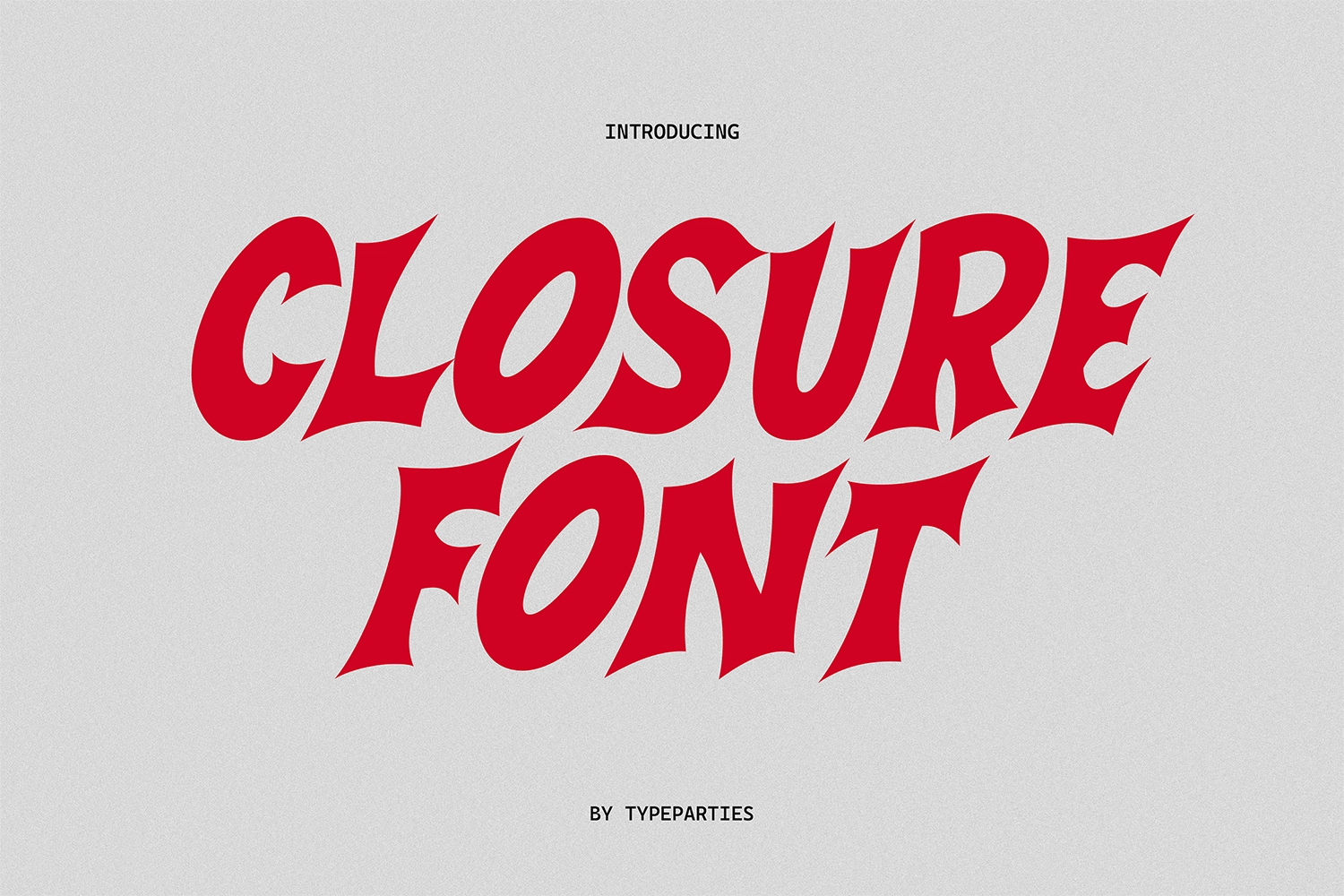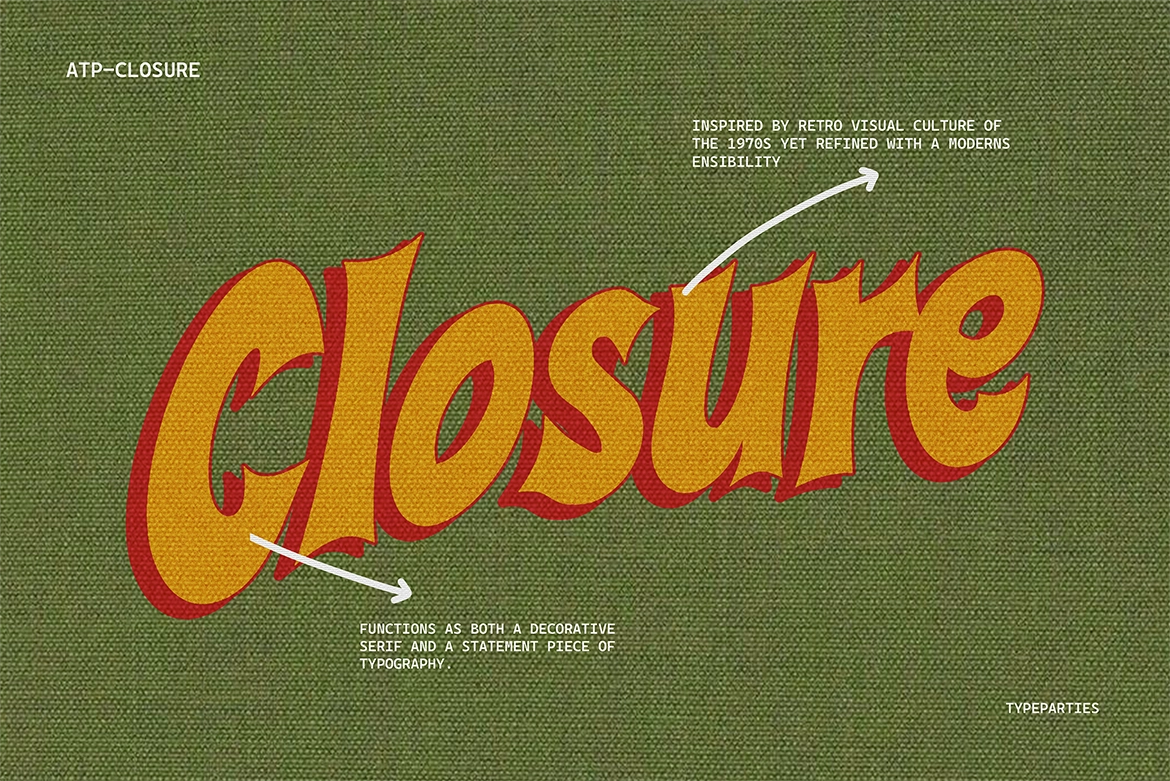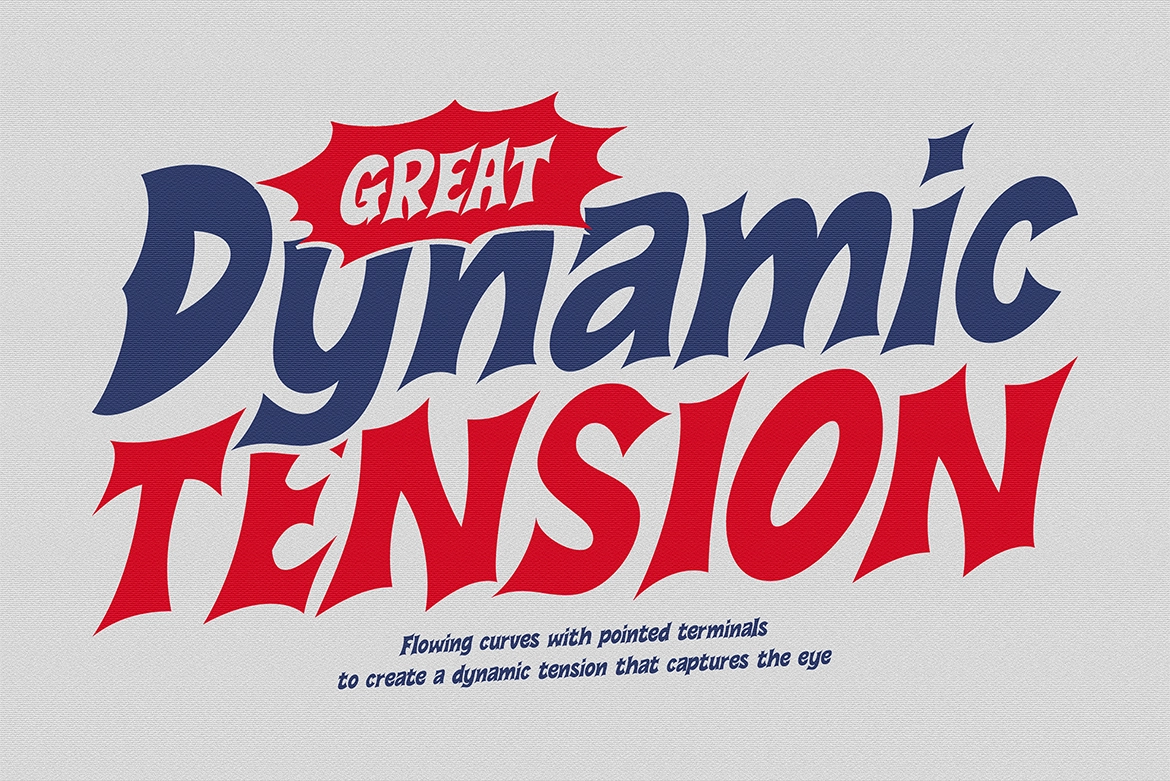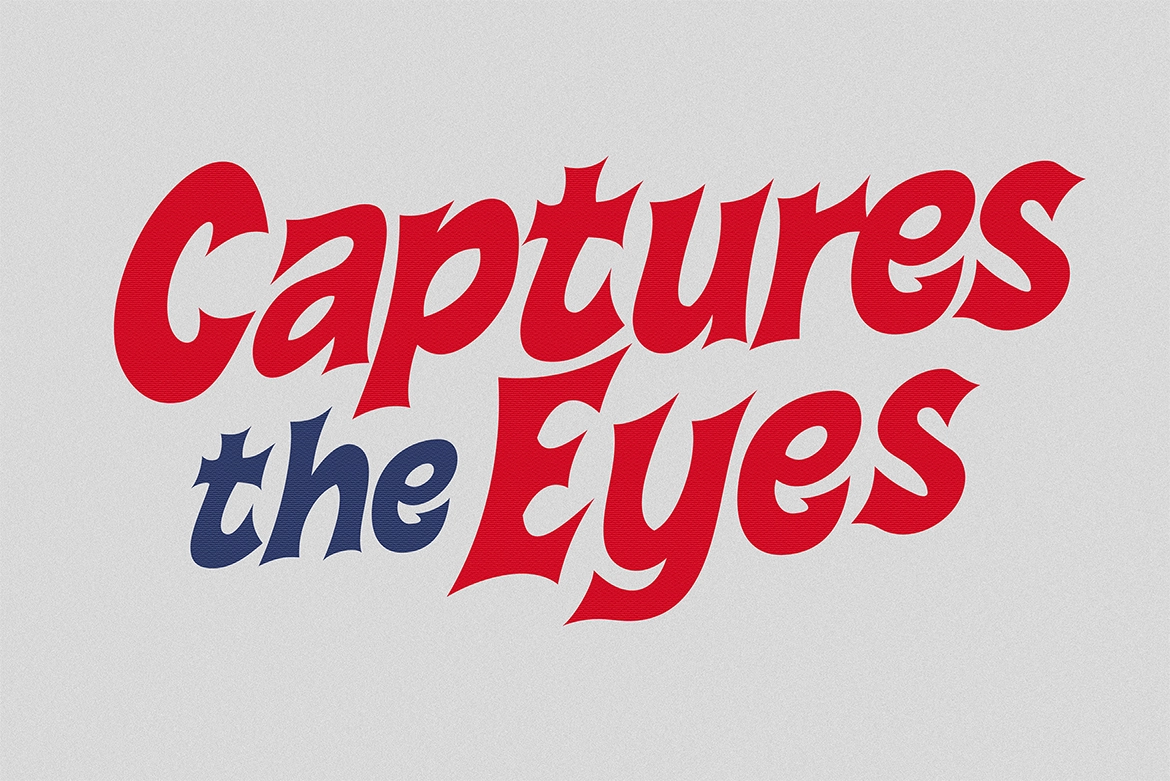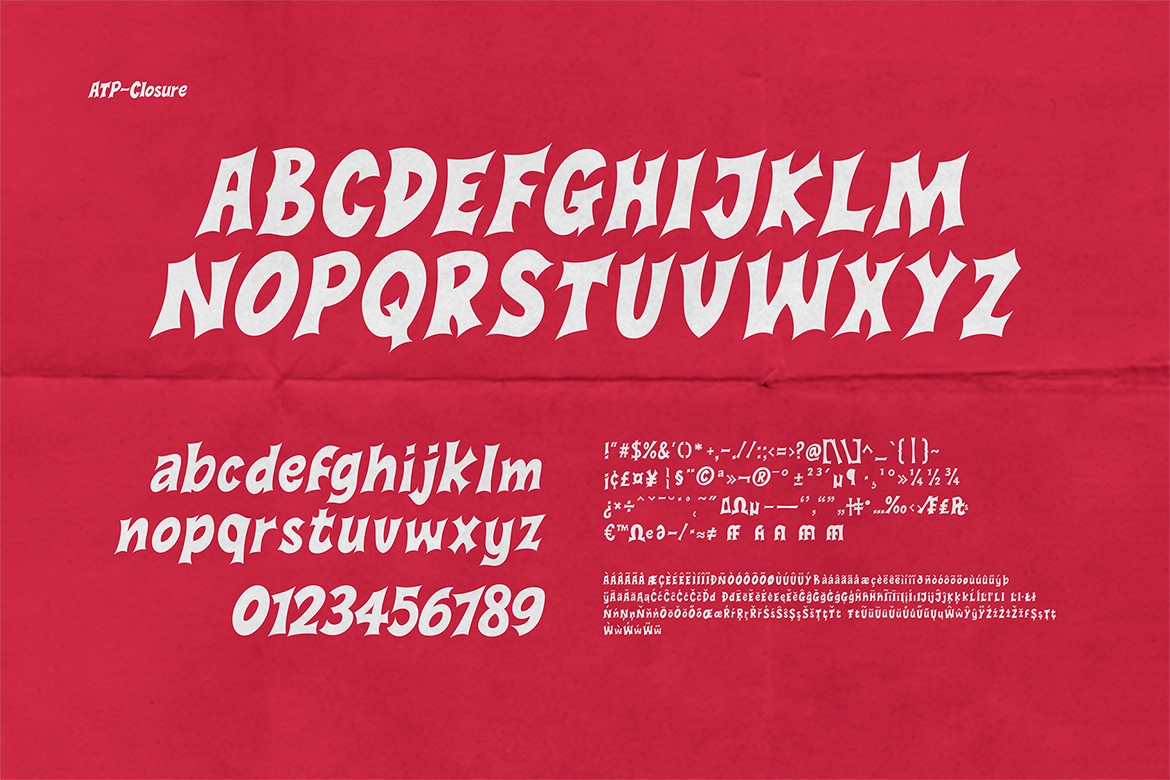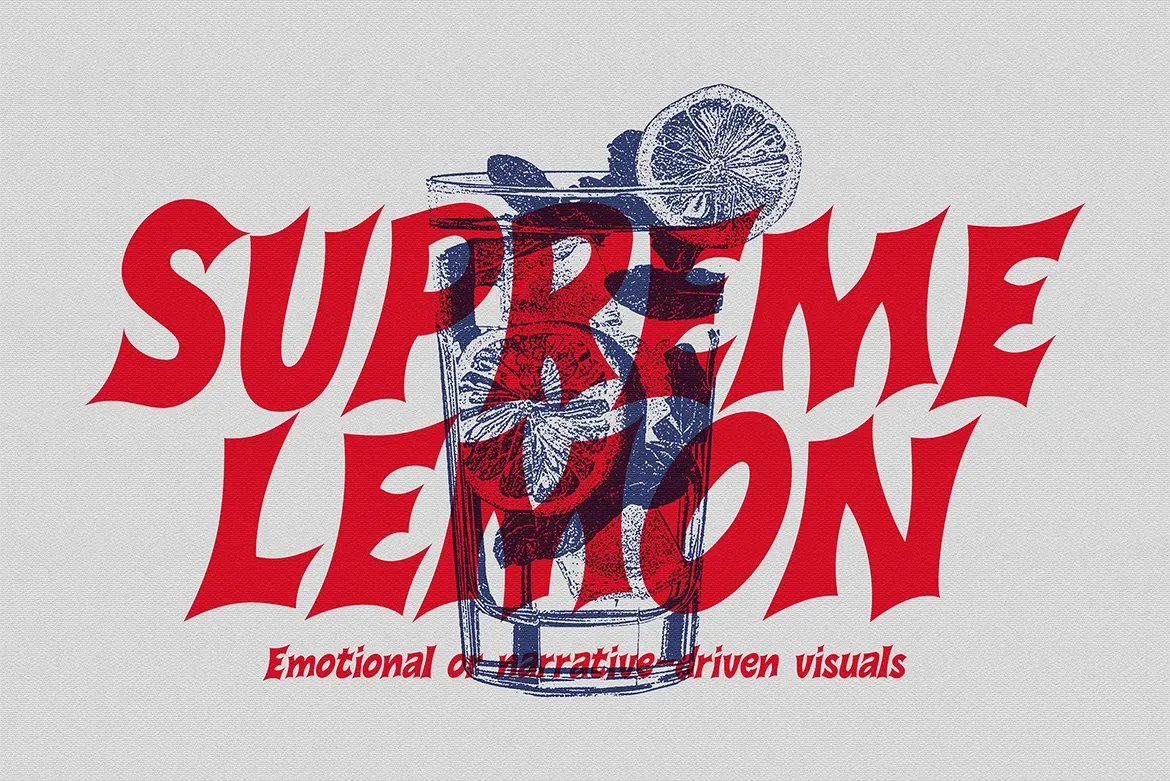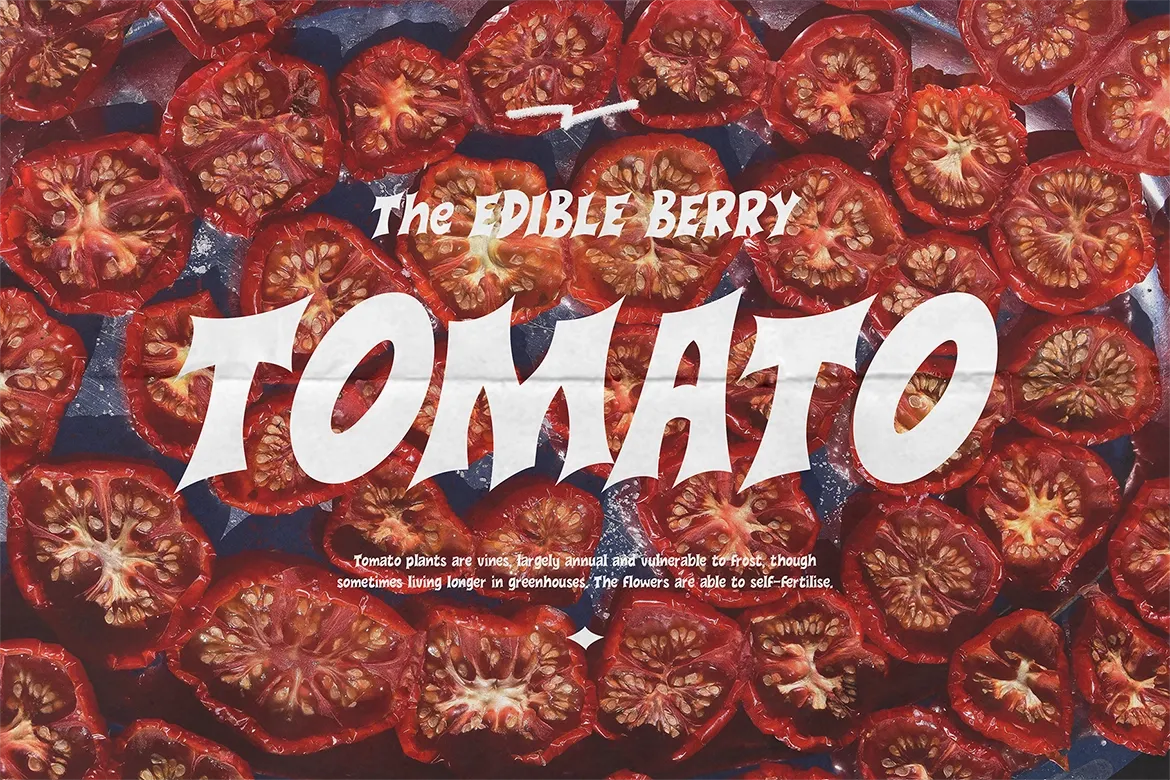
Closure - Sharp Dynamic Font
Closure – Sharp Dynamic Font is where retro groove meets sharp contemporary attitude. Inspired by the bold expressiveness of the ’70s and reimagined through a modern decorative serif lens, this display typeface commands attention from the very first letter.
With flowing curves, pointed terminals, and energetic rhythm, Closure creates visual tension that feels alive and cinematic. The letterforms stretch and snap with confidence, making headlines feel louder, posters more dramatic, and branding instantly recognizable. It’s the kind of type that doesn’t just support a layout — it defines it.
Perfect for album covers, statement posters, fashion branding, packaging, editorial spreads, and bold social media graphics, Closure delivers a nostalgic vibe without feeling outdated. It captures the spirit of vintage typography while staying sharp, clean, and highly usable in modern design systems.
• Dynamic retro-inspired serif display font
• Flowing curves with sharp, pointed terminals
• Bold, high-impact headline presence
• Uppercase & lowercase characters
• Numerics & punctuation
• Ideal for posters, branding, apparel & editorial